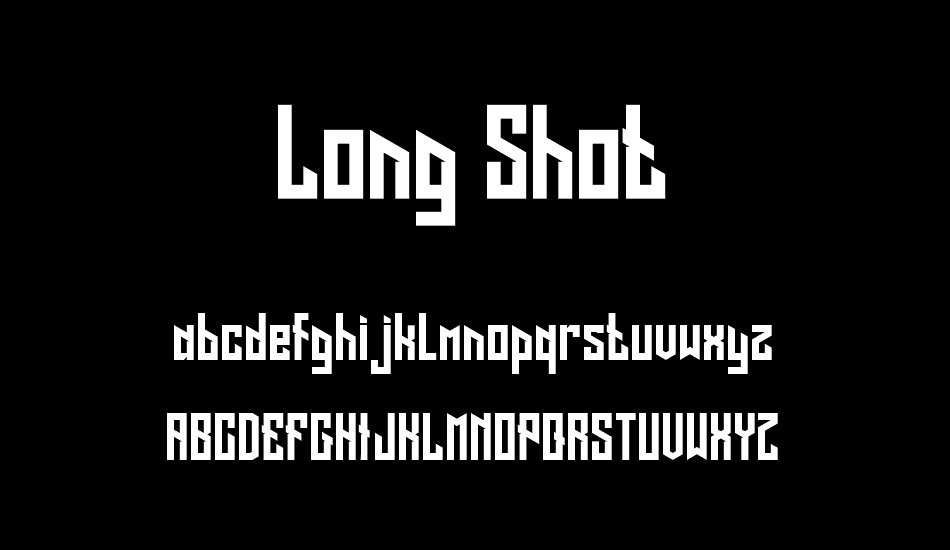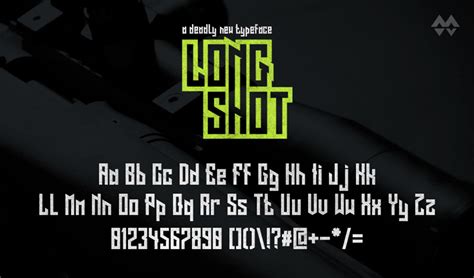
Long Shot Font
Long Shot Font - This font is licensed for personal and. Web long shot is a deadly new new display typeface with a bold, distinctive design. Web download long shot font, a free gothic lettering font designed by mattydecesare.
Web download long shot font, a free gothic lettering font designed by mattydecesare. This font is licensed for personal and. Web long shot is a deadly new new display typeface with a bold, distinctive design.
Web long shot is a deadly new new display typeface with a bold, distinctive design. Web download long shot font, a free gothic lettering font designed by mattydecesare. This font is licensed for personal and.
Web Download Long Shot Font, A Free Gothic Lettering Font Designed By Mattydecesare.
This font is licensed for personal and. Web long shot is a deadly new new display typeface with a bold, distinctive design.